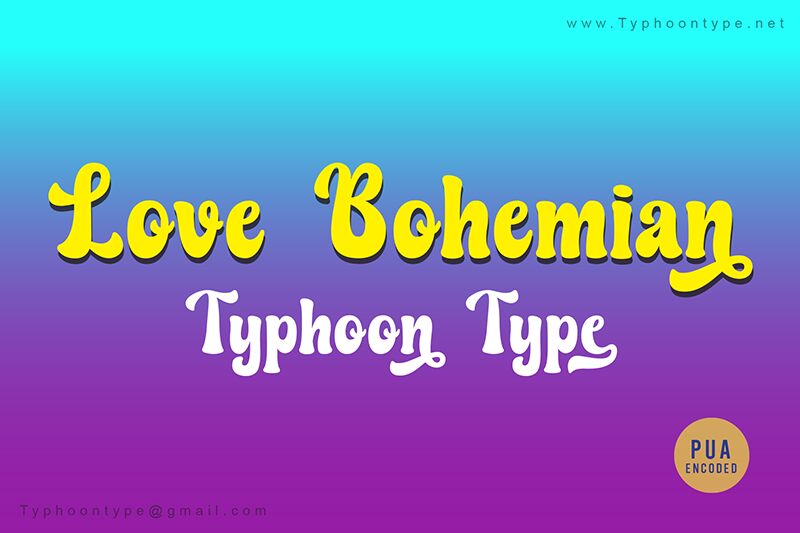
Love Bohemian, designed by Typhoon Type™ - Suthi Srisopha, is a bold and groovy display font that brings a touch of free-spiritedness to any project. With its semi-condensed width, it's perfect for creating eye-catching headlines, logos, posters, and album covers that demand attention. Use Love Bohemian to infuse your designs with a sense of bohemian elegance and retro charm. Whether you're working on a music festival promotion, fashion brand identity, or artisanal product packaging, this font will add a unique and playful vibe to your creative endeavors. Embrace the groove with Love Bohemian!